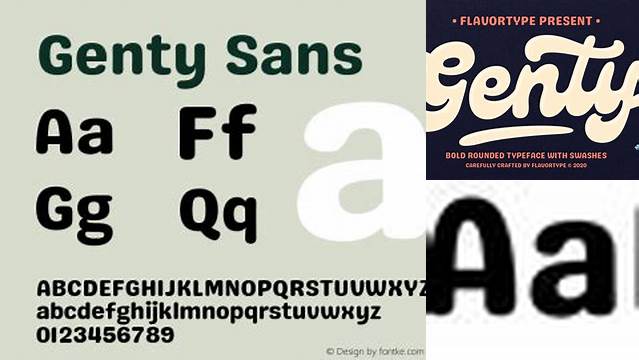
Hey everyone, are you on the hunt for a sleek, modern typeface? Look no further than Genty Sans Font! This article is your one-stop guide to everything Genty Sans – from where to get it for free, to how to use it like a pro. Let's dive in, shall we?
What is Genty Sans Font?
First things first: What exactly is Genty Sans? Well, Genty Sans is a contemporary sans-serif font, meaning it's a font without those little decorative strokes at the ends of the letters (serifs). It's clean, it's readable, and it's incredibly versatile. Designed with a minimalist aesthetic, Genty Sans is perfect for a wide range of design projects. Think websites, logos, branding materials, and even body text. Its simple and elegant design makes it a fantastic choice for both digital and print applications. Genty Sans often comes in a variety of weights and styles, giving you plenty of options to customize your designs. From light and airy to bold and attention-grabbing, you can adjust the font to match the tone and feel of your project. This flexibility is what makes Genty Sans such a popular choice among designers, and even for those of us just starting to explore the world of typography.
When you use Genty Sans, you're choosing a font that focuses on clarity and readability. This is why it's often seen in modern designs. The clear letterforms make it easy on the eyes, which is especially important for things like website content and lengthy documents. The neutral character of Genty Sans also allows it to pair well with other fonts, opening up even more design possibilities. Whether you're creating a corporate identity or a personal project, Genty Sans can help you achieve a professional and polished look. Plus, the fact that you can often find it for free makes it accessible to everyone, from seasoned designers to hobbyists. It's a testament to the power of good design: simple, effective, and widely available. It is worth noting that different versions of Genty Sans might have slight variations in their design. Therefore, you should always ensure that the version you download aligns with your needs and style preferences. And don't forget to check the licensing information before using it, so that you can use it legally and appropriately.